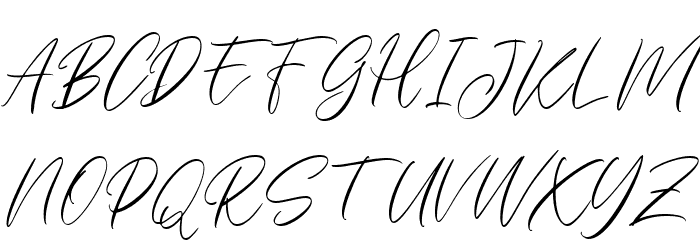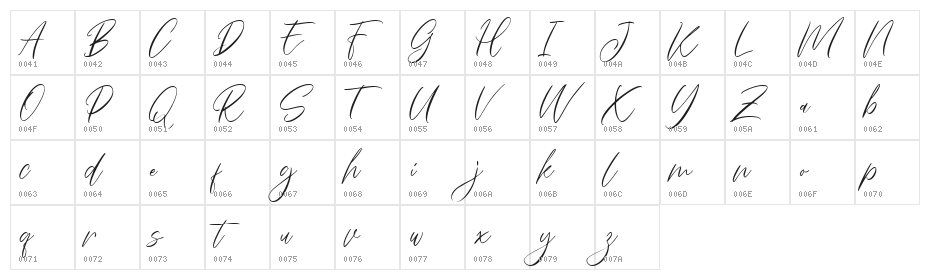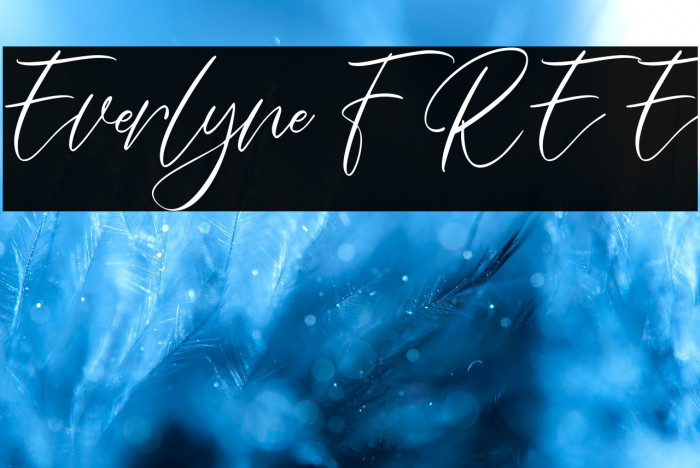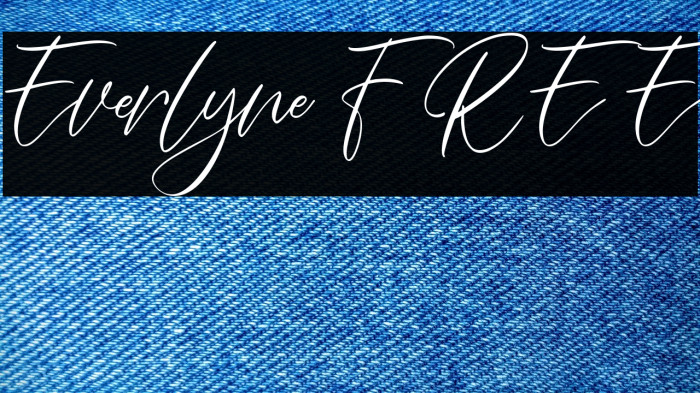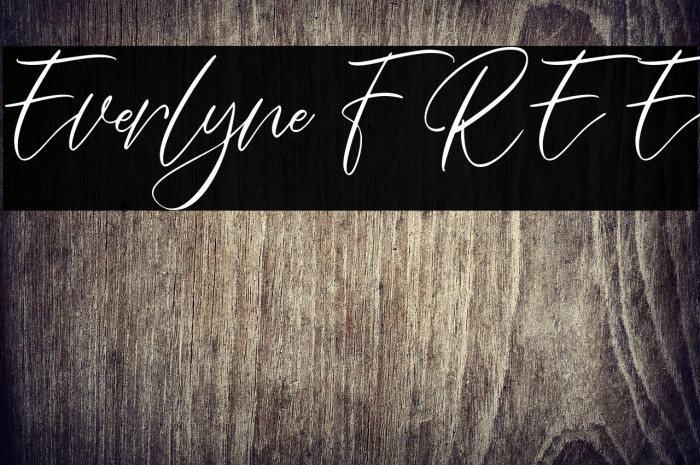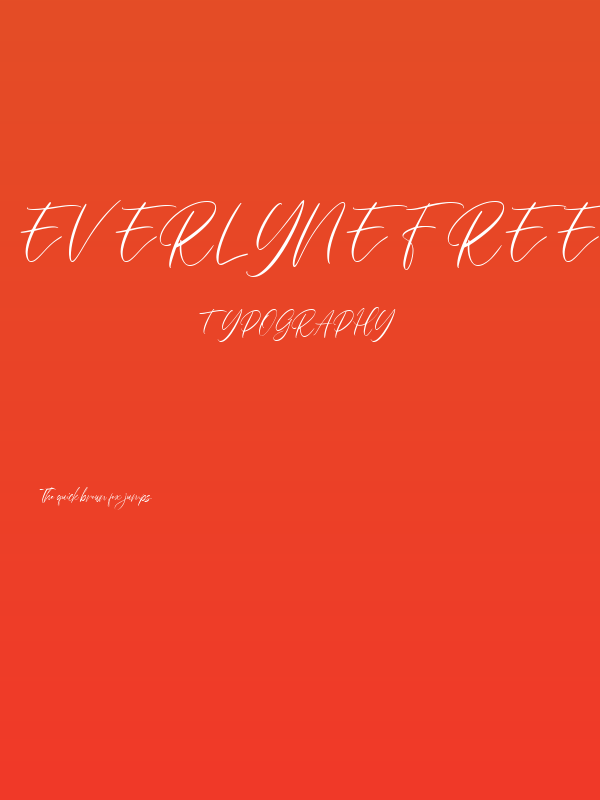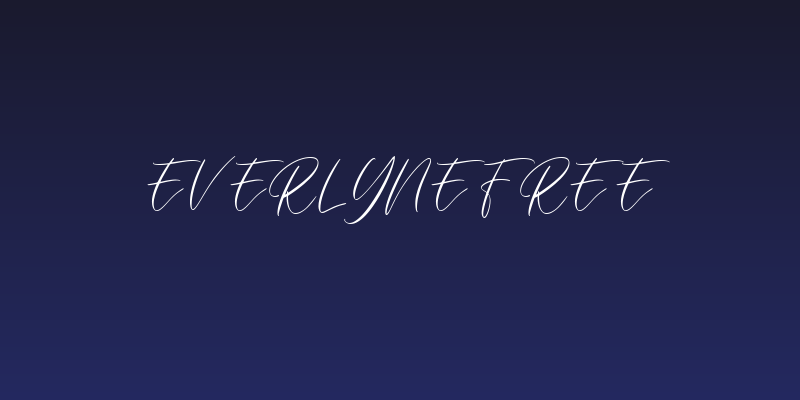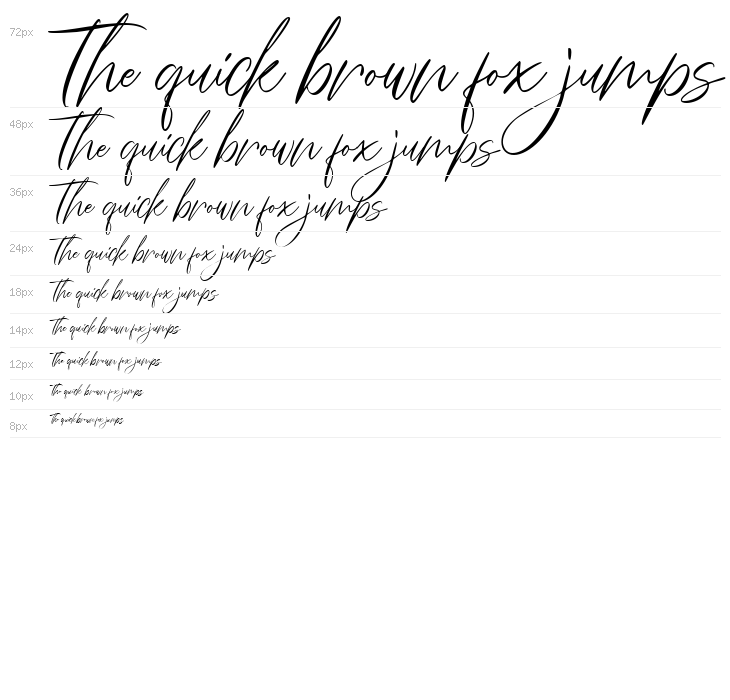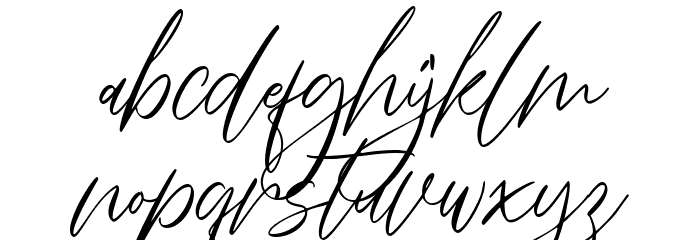
Everlyne FREE Font
Everlyne FREE Description
This font exudes a sense of elegance and fluidity, characterized by its cursive, handwritten style. The letters are gracefully connected, creating a seamless flow that mimics natural handwriting. The strokes are thin and delicate, with a slight variation in thickness that adds a touch of sophistication. The uppercase letters are slightly more structured, while the lowercase letters exhibit a more freeform and artistic flair. This font is ideal for projects that require a personal touch, such as invitations, greeting cards, or branding materials that aim to convey warmth and creativity.
| Proposed Projects | Ideal for wedding invitations, personal branding, greeting cards, and artistic projects. |